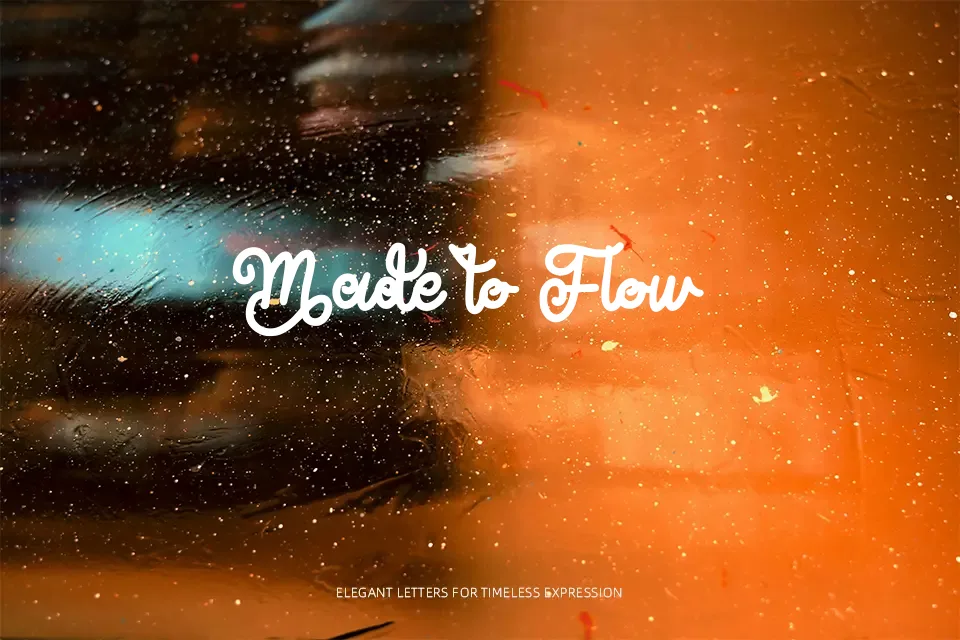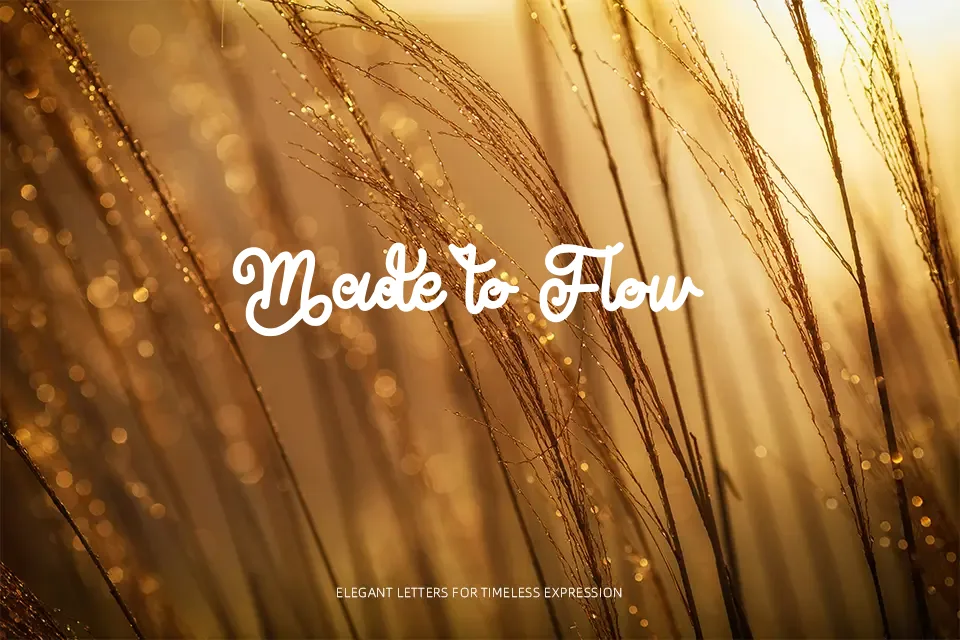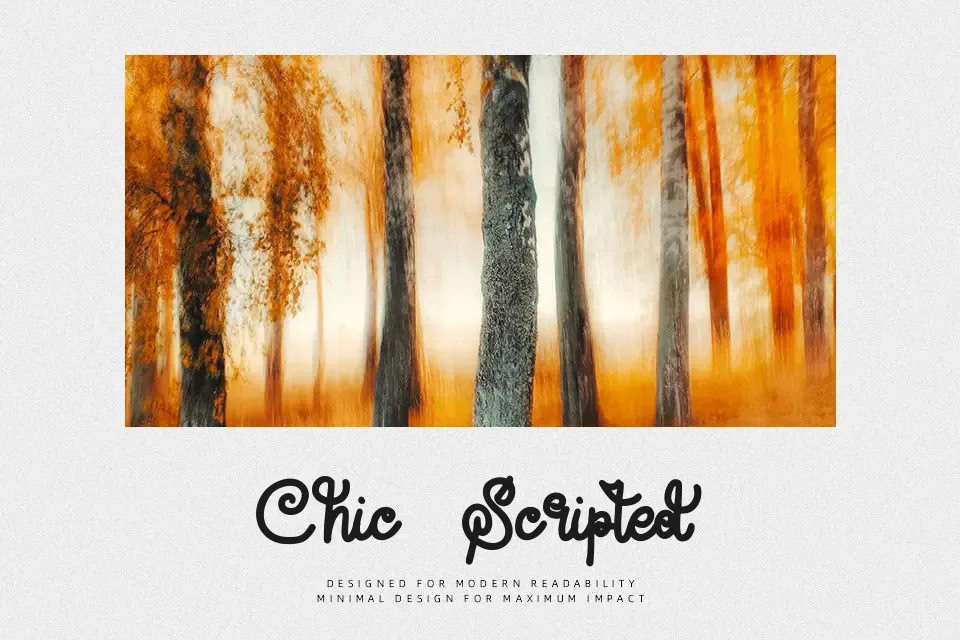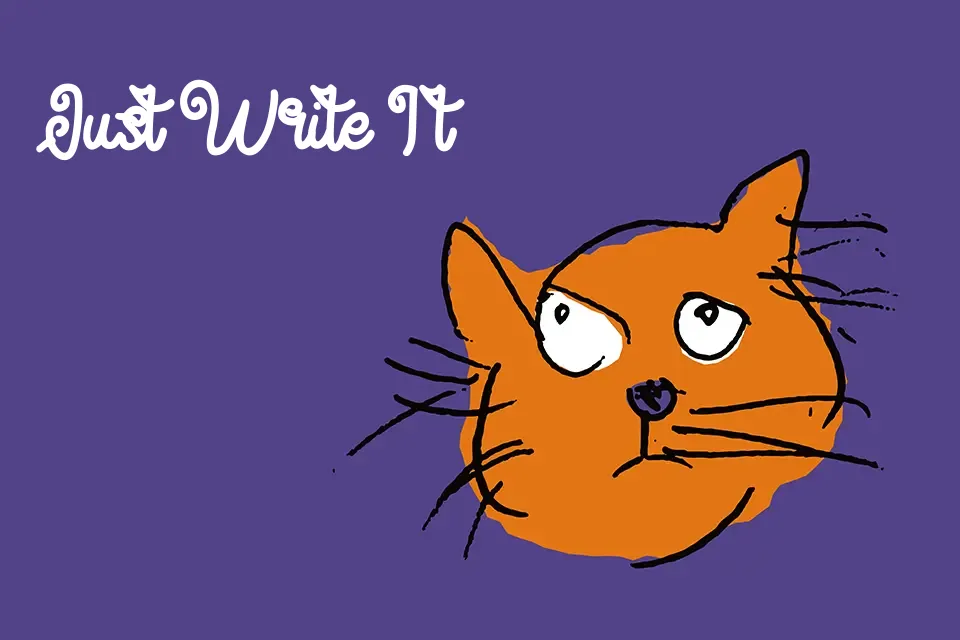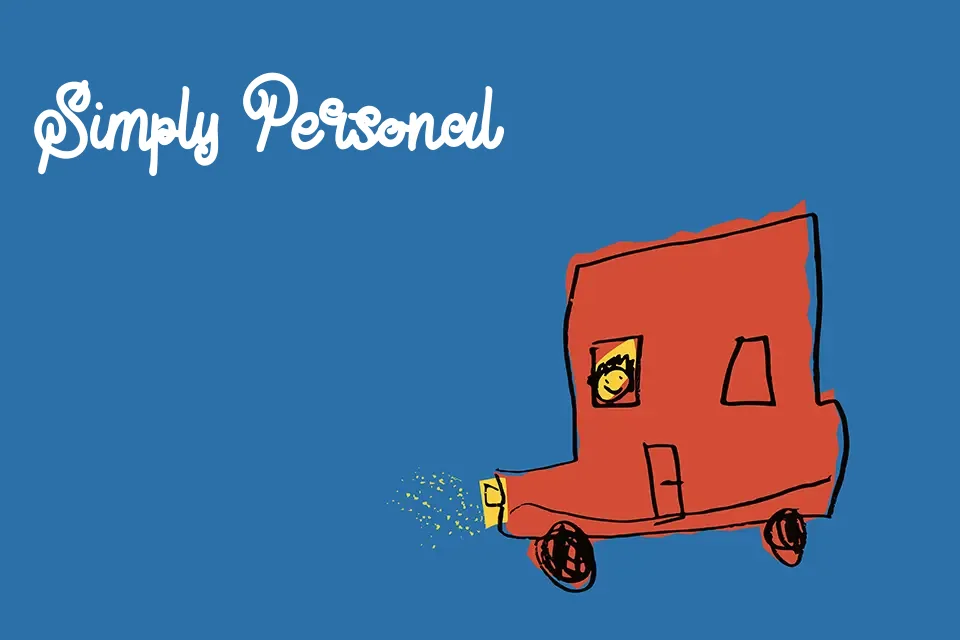
Butter Fly Font
Designed by Vunira Design
Butter Fly is a flowing monoline script with rounded curves, even stroke weight, and generous letter connections that feel like a neat, casual signature. The spacing leans slightly loose, which helps each word stay legible in larger sizes but can look crowded in dense paragraphs. Its overall impression is decorative and friendly, closer to a hand-lettered logo or tagline than a standard text face. It works well on branding for beauty products, small boutiques, or lifestyle Instagram posts where a personal, feminine voice matters more than strict formality. For long editorial text or tiny interface labels, the continuous script and connecting strokes can reduce clarity, so a simpler sans serif is usually a better companion.
hand-lettered logo marks for boutiques
quote graphics and social media posts
product labels and packaging with a personal feel
small UI text or technical documentation
formal corporate reports or strict minimalist branding
Perfect for branding, logo, and packaging, with a creative and calligraphy style.